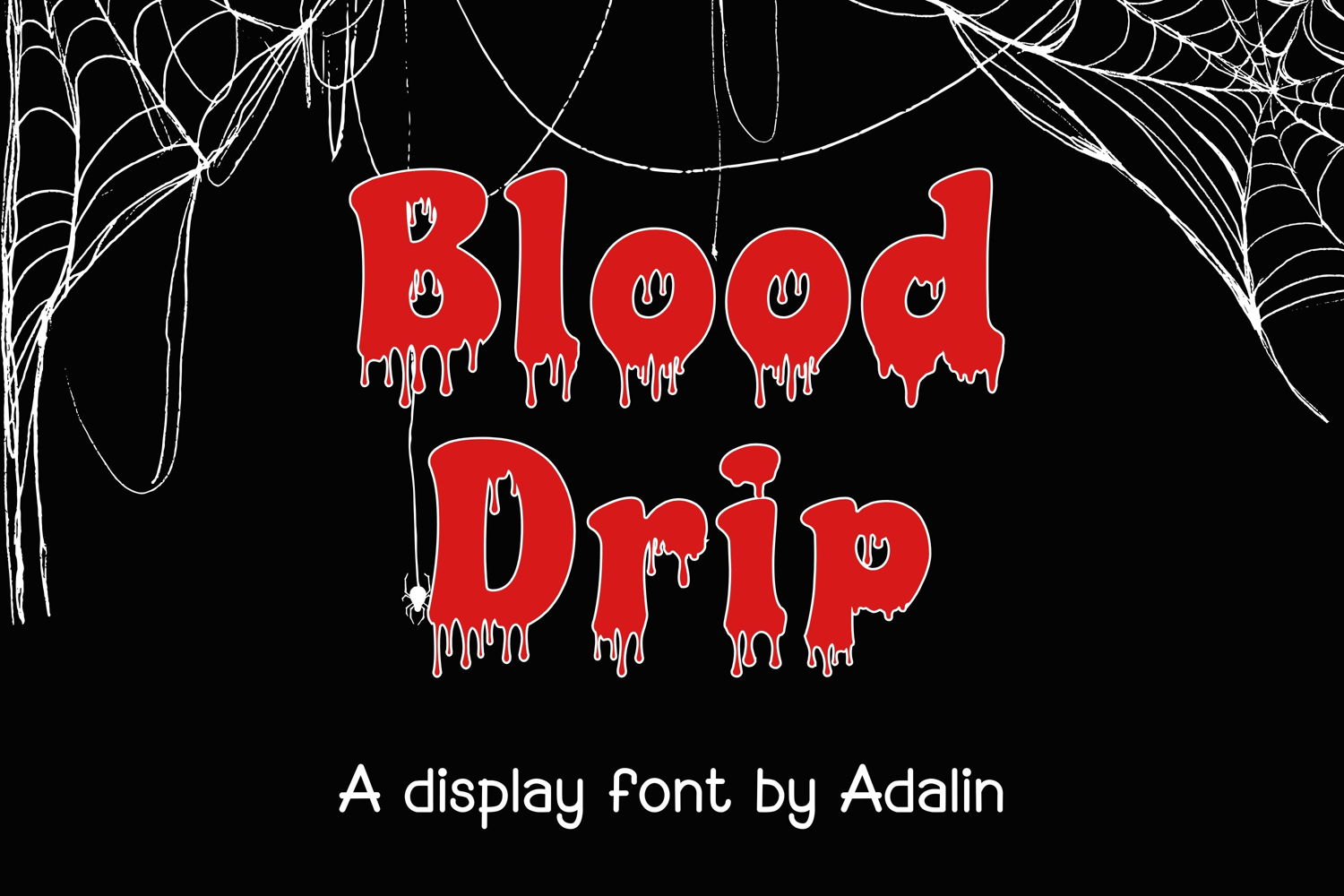
Blood Drip font is a font with a Halloween theme. It is perfect for your Halloween project. Make your design with this decorative font to celebrate the day!